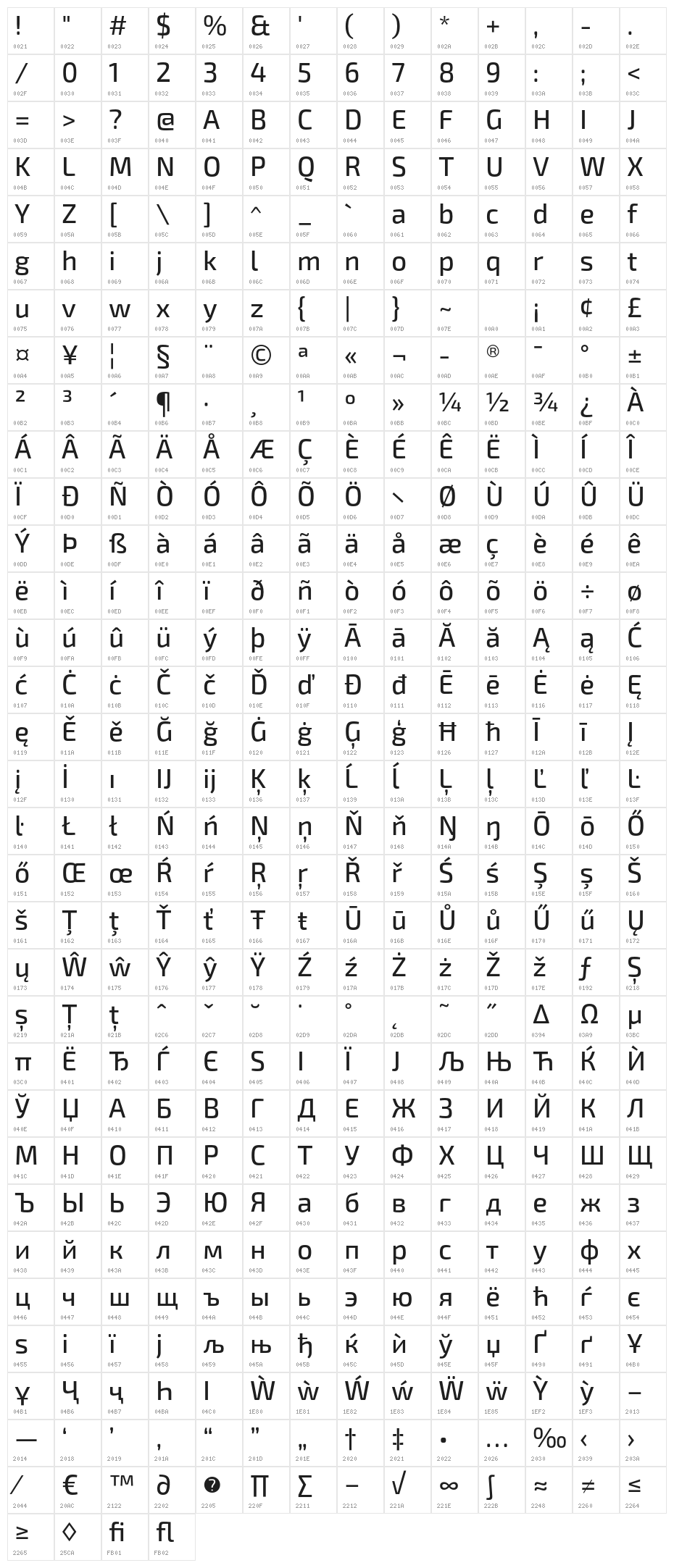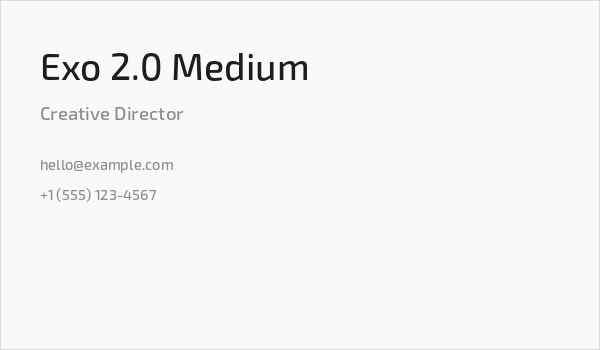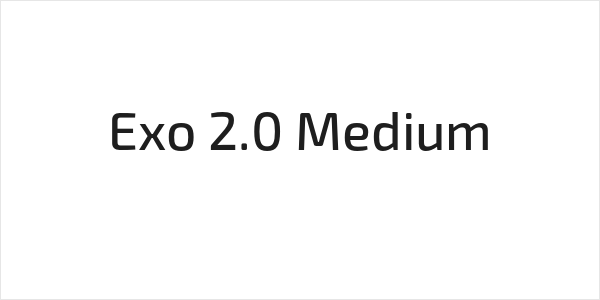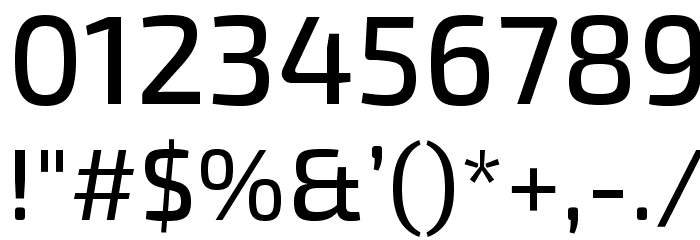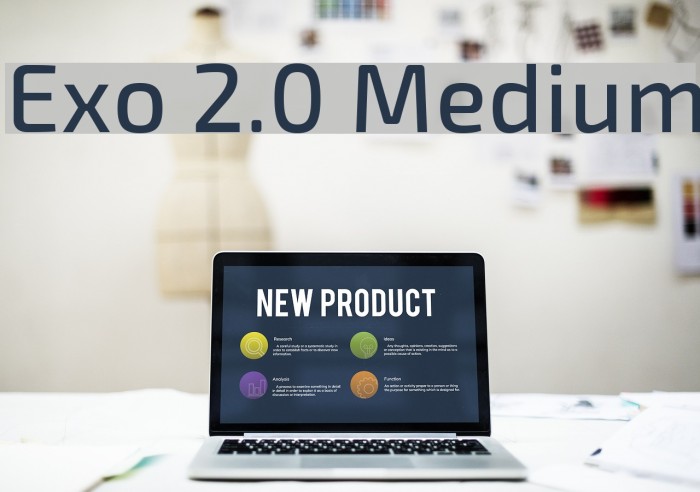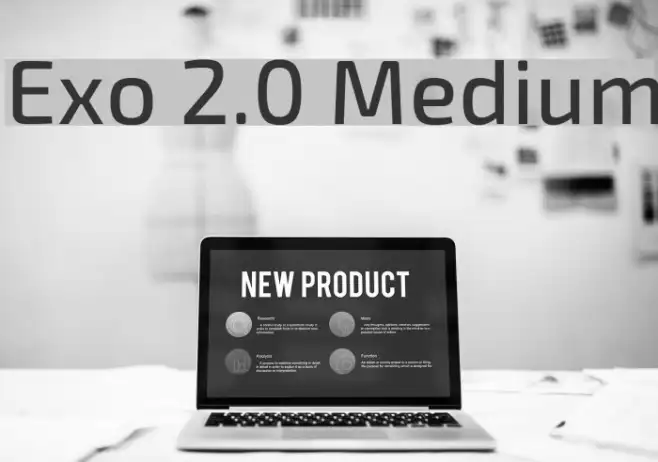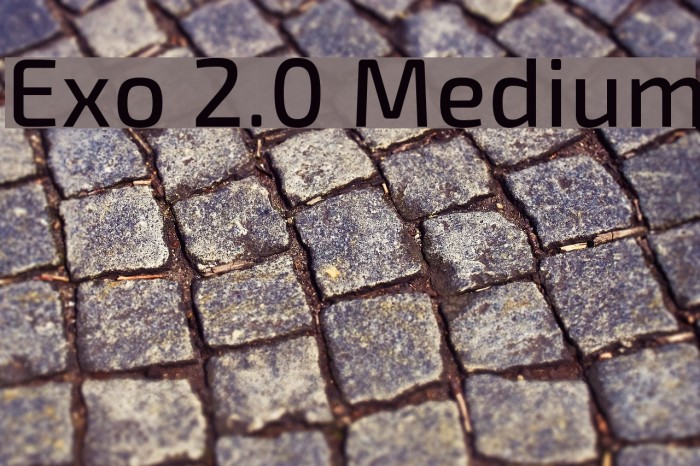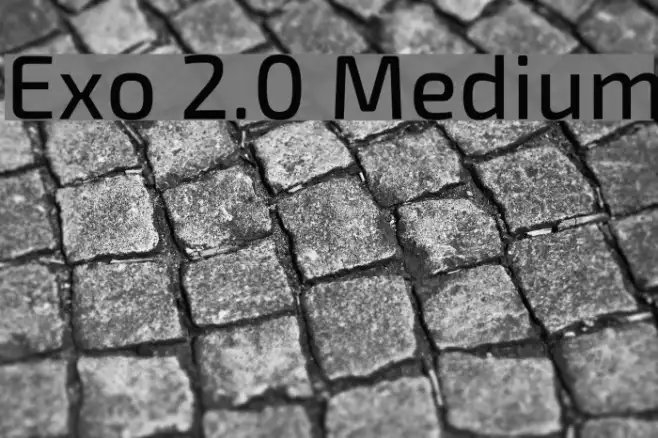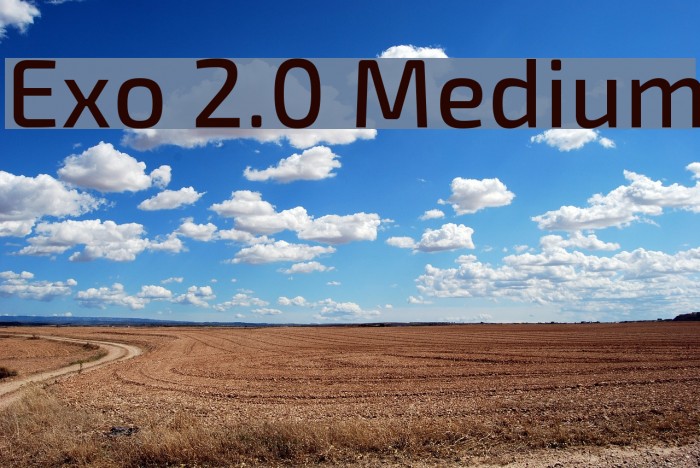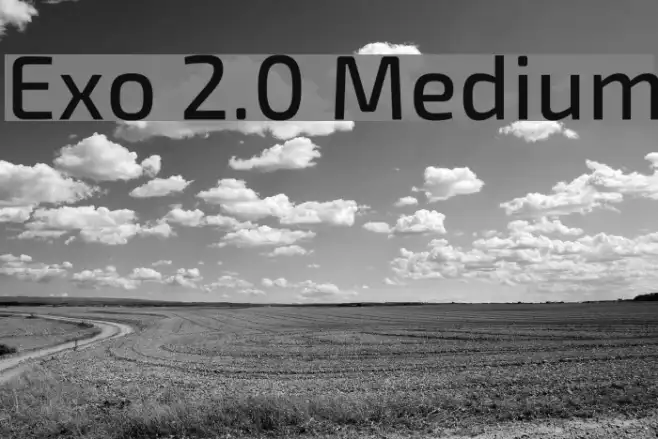
Exo 2.0 Medium Font
Exo 2.0 Medium Description
This font features a modern and sleek sans-serif design, characterized by its clean lines and geometric shapes. The characters are well-balanced with a consistent stroke width, providing a harmonious and professional appearance. The uppercase letters are bold and assertive, while the lowercase letters maintain a friendly and approachable feel. The numerals are clear and easily distinguishable, making them suitable for a variety of applications. The special characters are designed with the same attention to detail, ensuring a cohesive look across all glyphs. This font is versatile and can be used in both digital and print media, offering excellent readability and a contemporary aesthetic.
| Proposed Projects | Ideal for branding, web design, advertising, and editorial projects. |